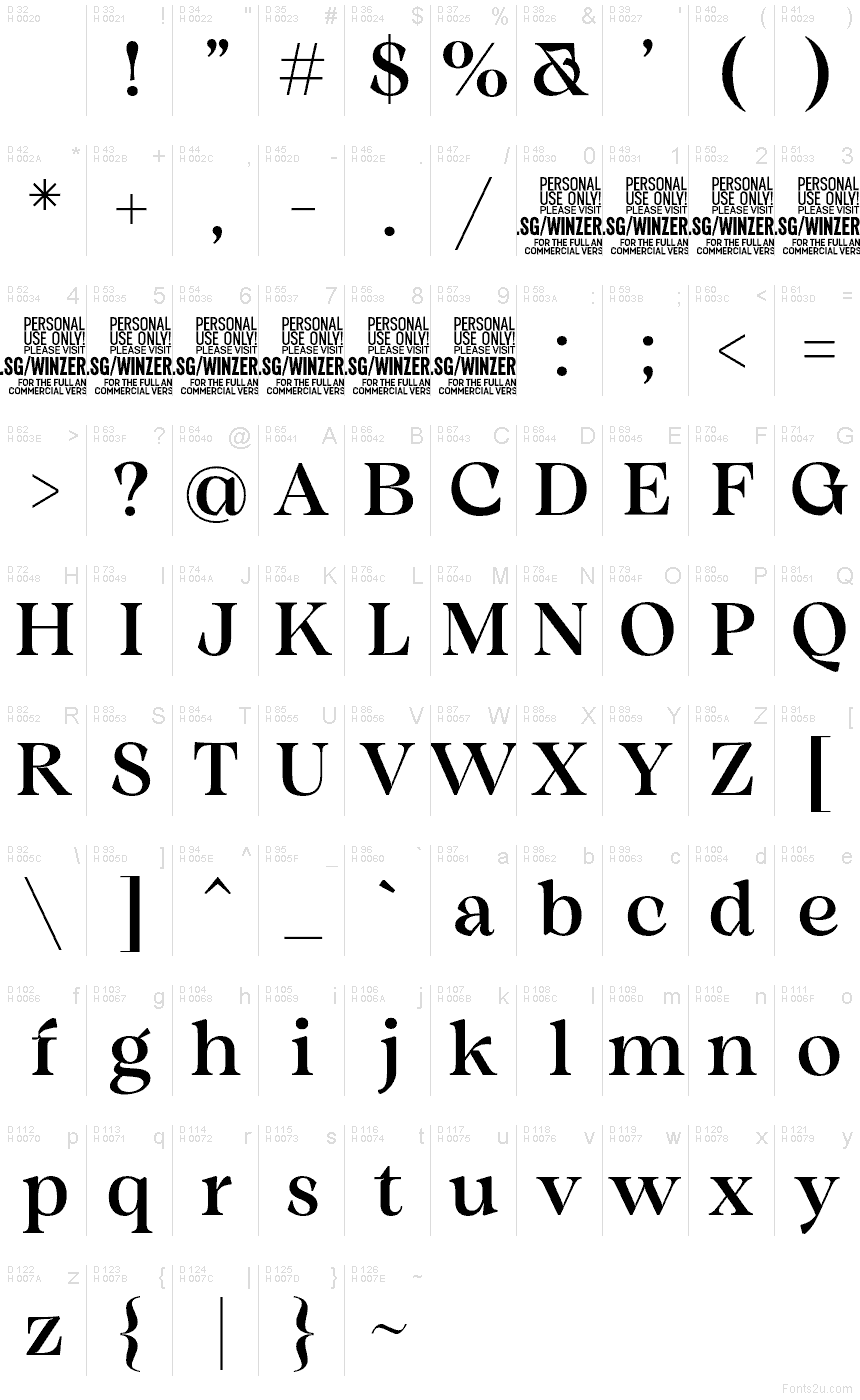
Winzer Serif PERSONAL USE Optical Regular
Winzer Serif Optical font by Mans Greback is a free high-contrast serif font. Cut for showtime, it carries crisp verticals, razor-edged wedges, and taut spacing that snap together like fine typesetting at 72pt and up. Within the Winzer Serif family, this Optical cut leans into glossy contrast and chiselled serifs, delivering a luxe, inky bite without getting fussy.
Using Winzer Serif Optical, headlines command attention, magazine covers feel editorially tuned, wine and craft-beverage labels gain heritage, luxury packaging reads premium, book titles hold the shelf, and restaurant menus signal refinement. This free font shines on posters and hero banners; pair it with a quiet geometric or grotesk sans for body copy, and tighten tracking slightly at large sizes to amplify its rhythm.